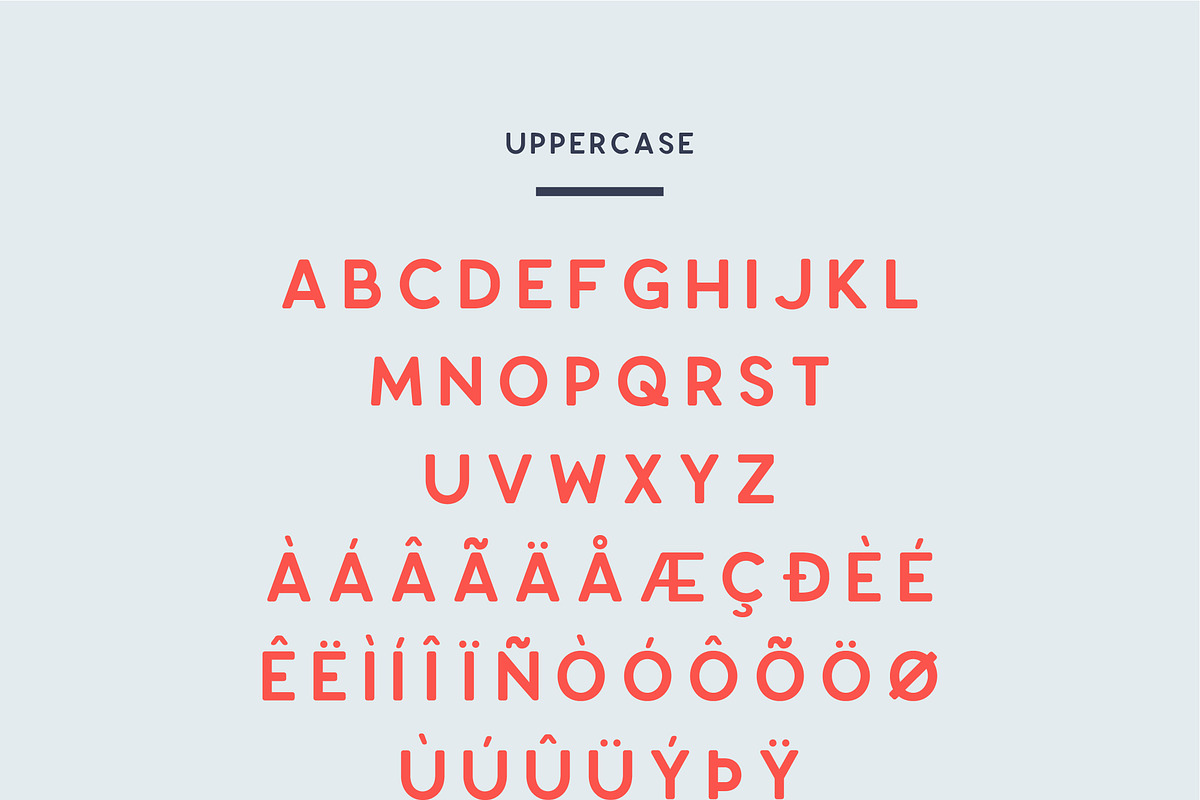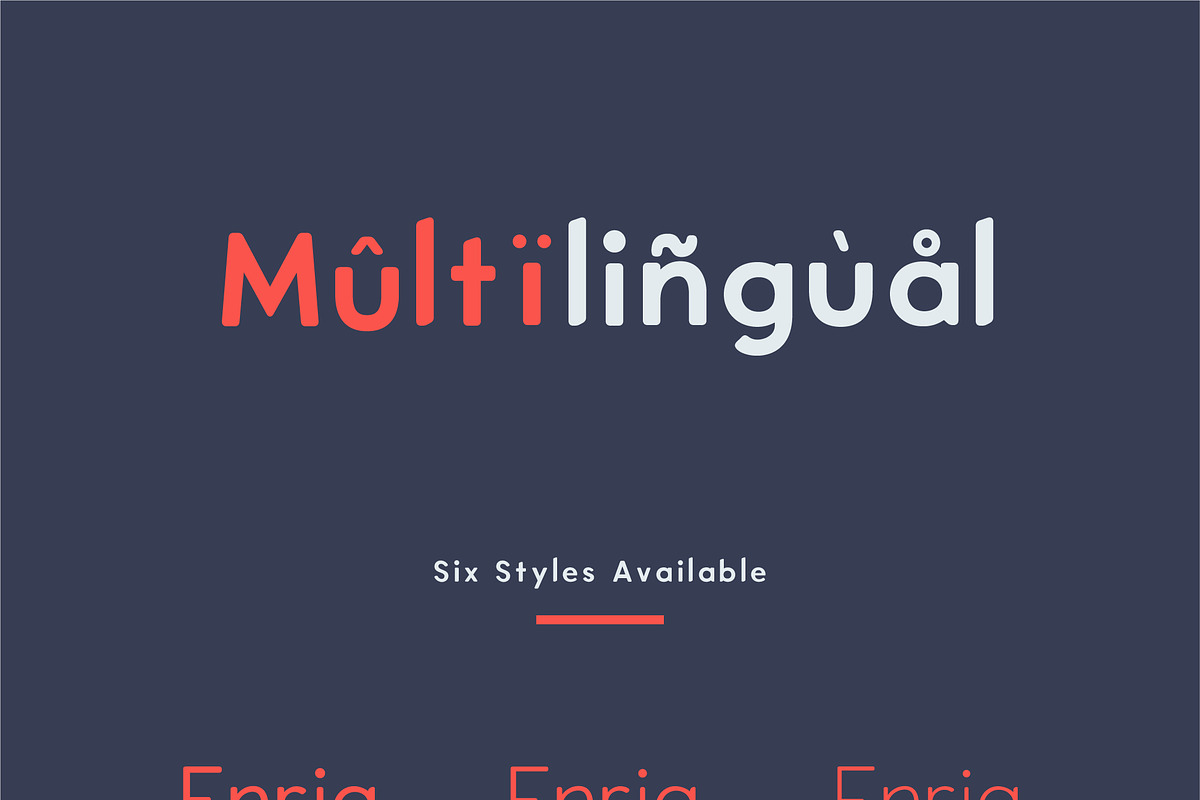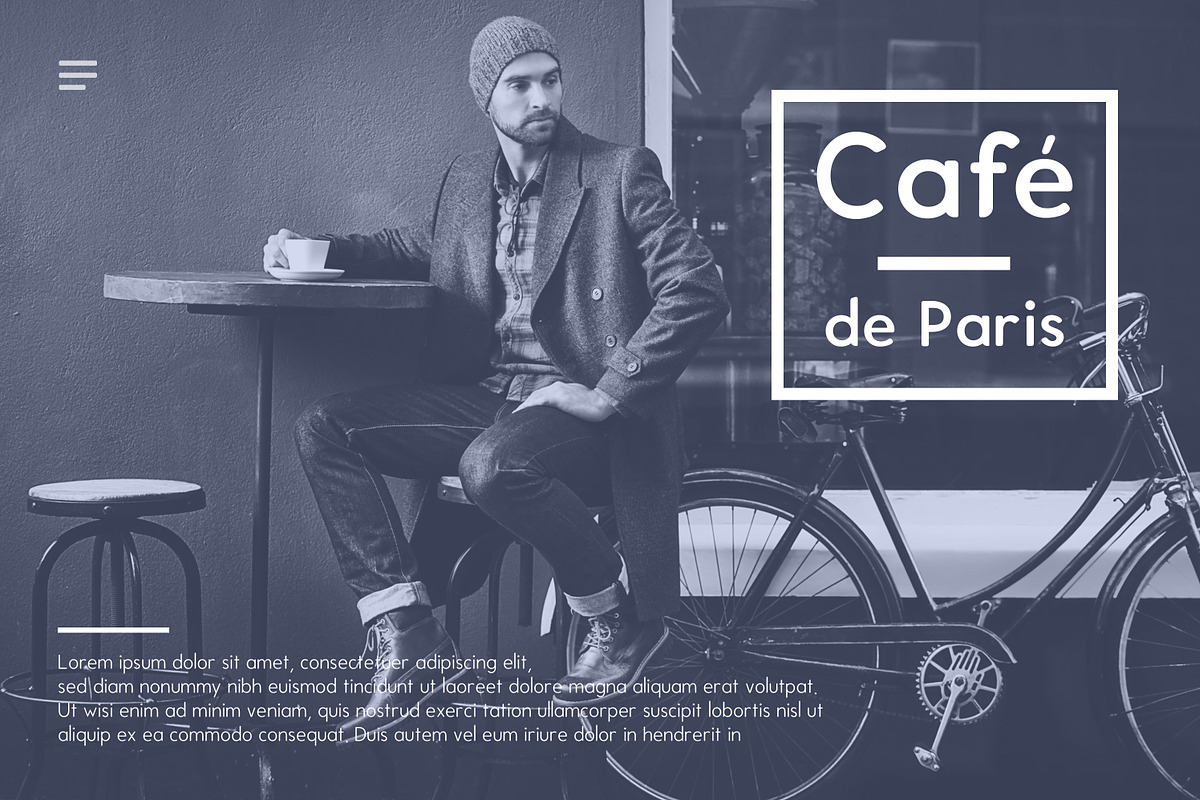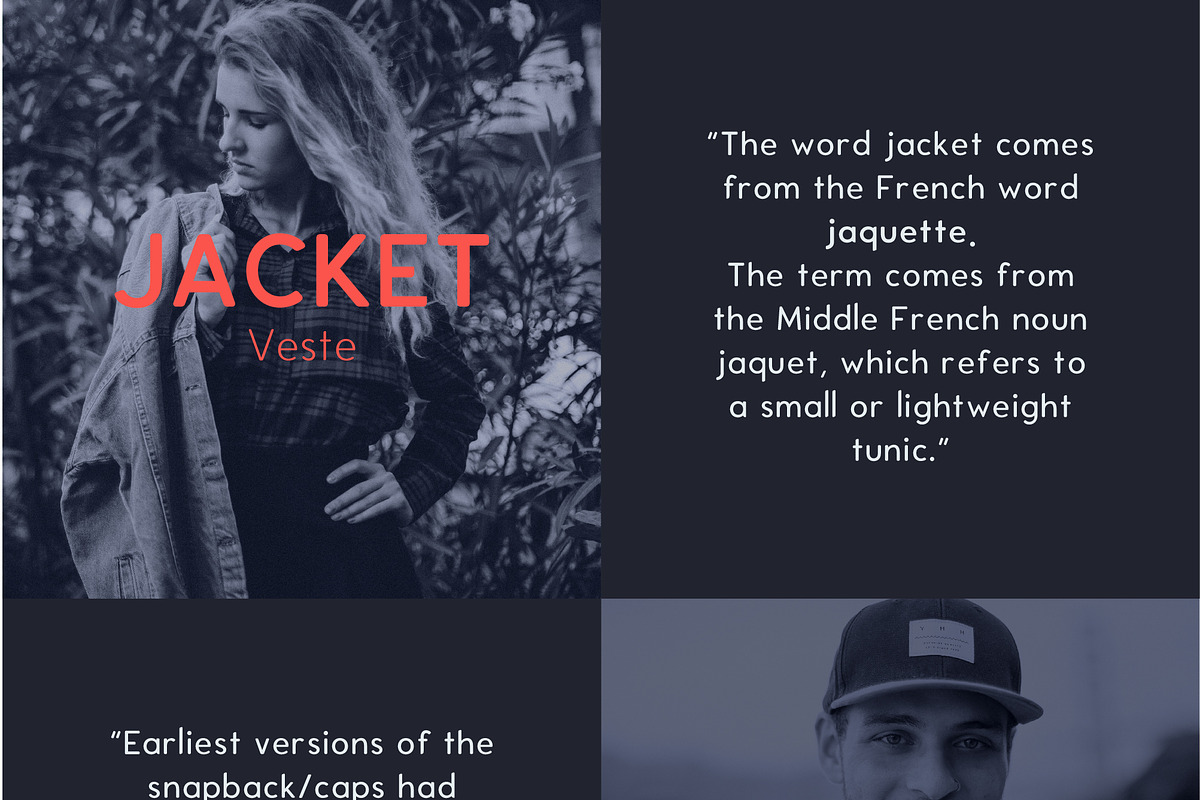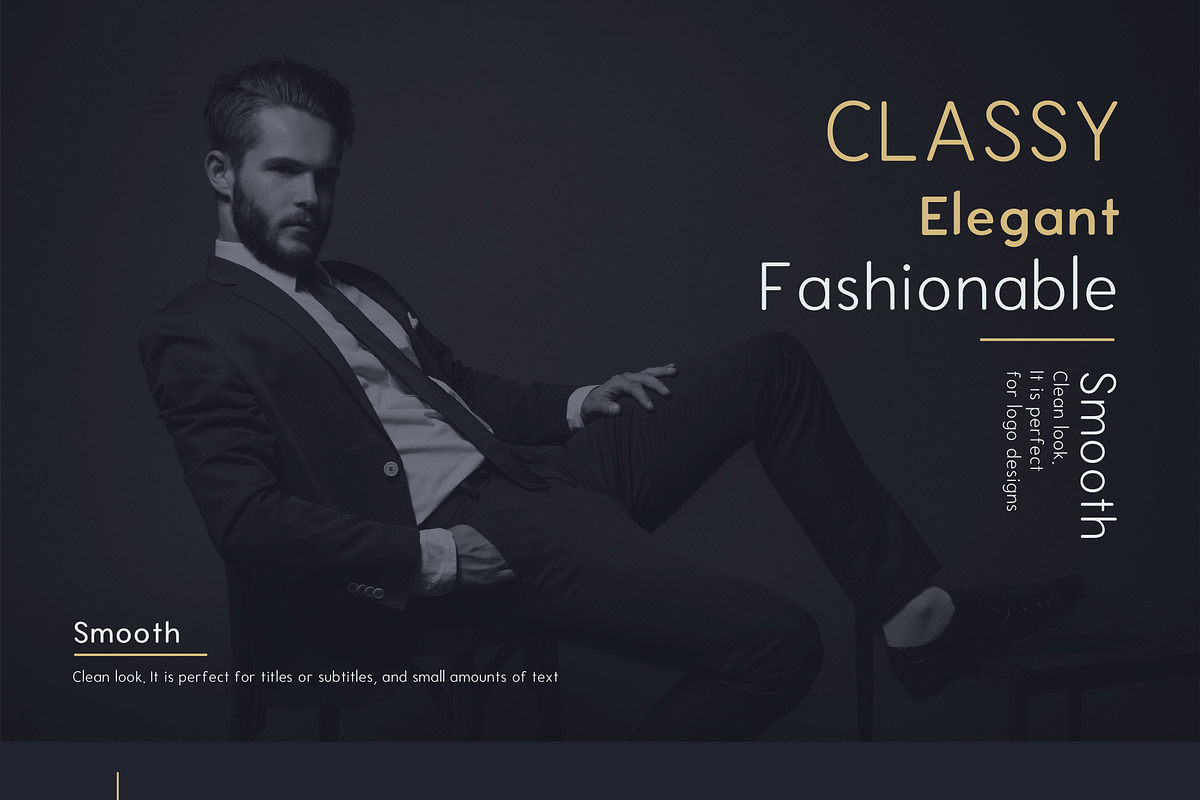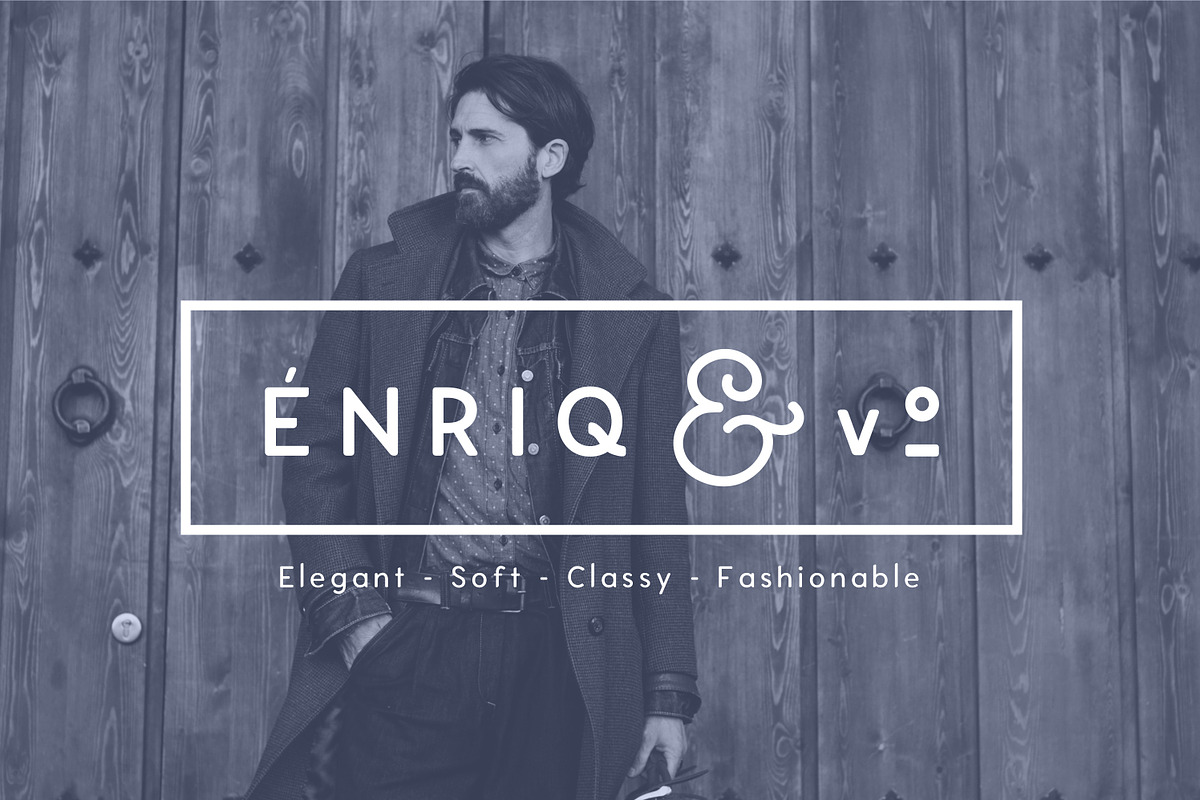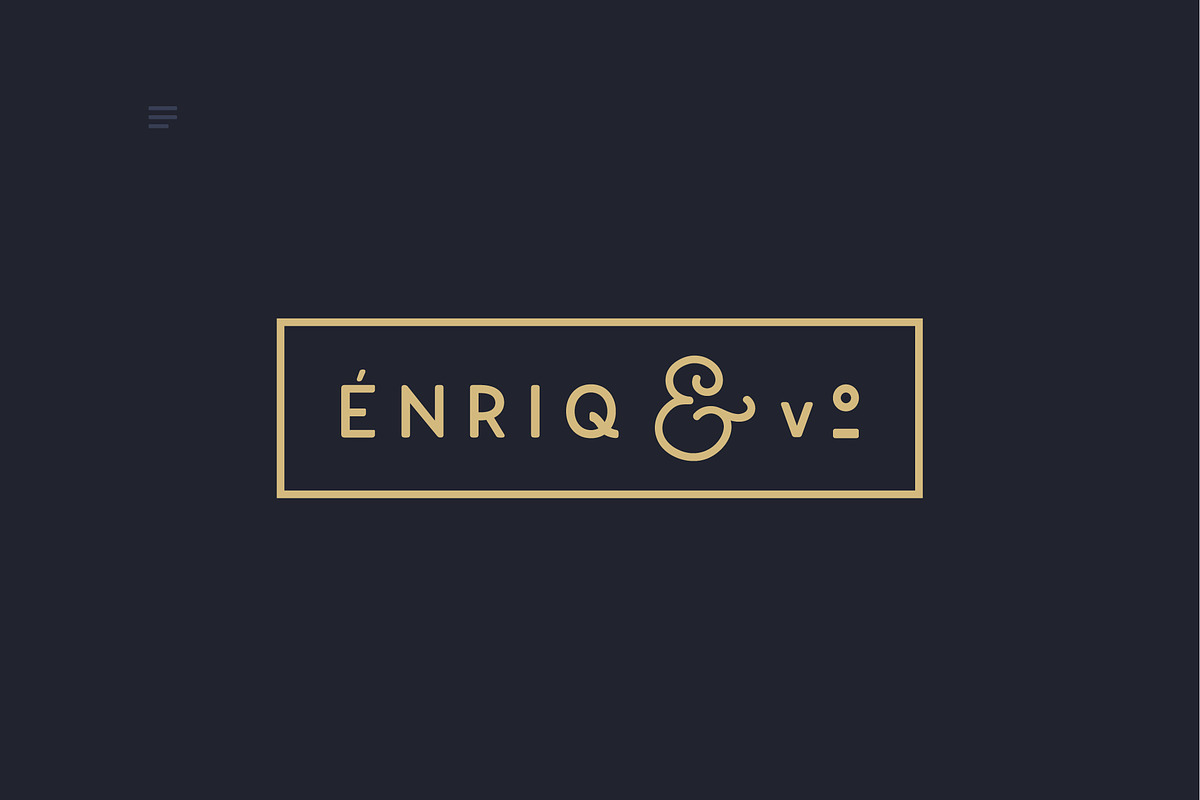
ENRIQ - Elegant Sans Serif Font
Enriq Sans v1.5 is an Elegant Sans serif typeface with smooth rounded edge style, Fashionable, Classy but still Modern. Designed with powerful opentype features in mind, and some nuances aid in legibility and give it a harmonious appearance for both texts and headlines. Perfect for branding, editorial and signage, works great for bigger applications. Each weight includes extended language support, ligatures and more. Perfectly suited for graphic design and any display use. It could easily work for web, signage, Software Interfaces, corporate as well as for editorial design.
Multiple Languages Supported:
Albanian, Basque, Breton, Chamorro, Danish, Dutch, English, Faroese, Finnish, Frisian, Galician, German, Icelandic, Italian, Malagasy, Norwegian, Portuguese, Alsatian, Arapaho, Arrernte, Aymara, Bislama, Cebuano, Corsican, Fijian, Frenchcreole, Genoese, Gilbertese, Greenlandic, Haitiancreole, Hiligaynon, Hmong, Hopi, Ibanag, Ilokoilokano, Indonesian, Interglossaglosa, Interlingua, Irishgaelic, Jerriais, Lojban, Lombard, Luxembourgeois, Manx, Mohawk, Norfolkpitcairnese, Occitan, Oromo, Pangasinan, Papiamento, Piedmontese, Potawatomi, Rhaeto-romance, Romansh, Rotokas, Samilule, Sardinian, Scotsgaelic, Seychellescreole, Shona, Sicilian, Somali, Southernndebele, Swahili, Swatiswazi, Tagalogfilipinopilipino, Tetum, Tokpisin, Uyghurlatinized, Volapuk, Walloon, Warlpiri, Xhosa, Yapese, Zulu, Latinbasic, and many more…
- Six styles available
- Regular
- Light
- Thin
- Medium
- Bold
- Black